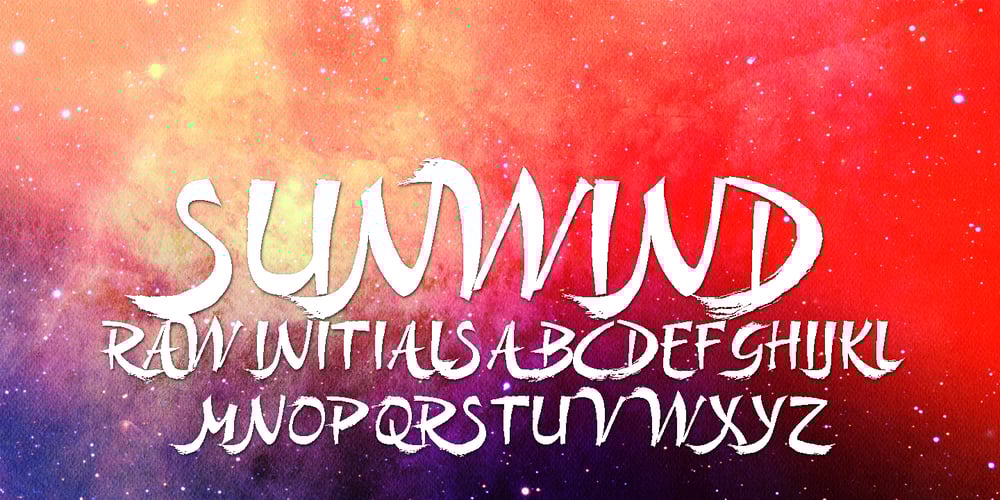
Sunwind Font Family was designed by Gert Wiescher and published by Wiescher Design. Sunwind contains 3 styles and family package options. Sunwind is not really made to write long copy. It is a font for shopsigns and short sentences that need that hot, sunny and windy touch. And that is how I got around to designing it: I saw some letters on a shopsign in Cannes when driving into town. I shouted at my son Julius: “Quick take a picture of that sign, the blue one.” That’s what he did, only he used the macro setting, so I had a very small sign but lots of nice background. Anyway I got the basic idea! Then I made a lot of sketches and this is what came out. I added a smallcaps set and I also made some initials as a rough version, so they look like written with a brush on heavygrain paper. Swinging that brush is yours truly Gert Wiescher